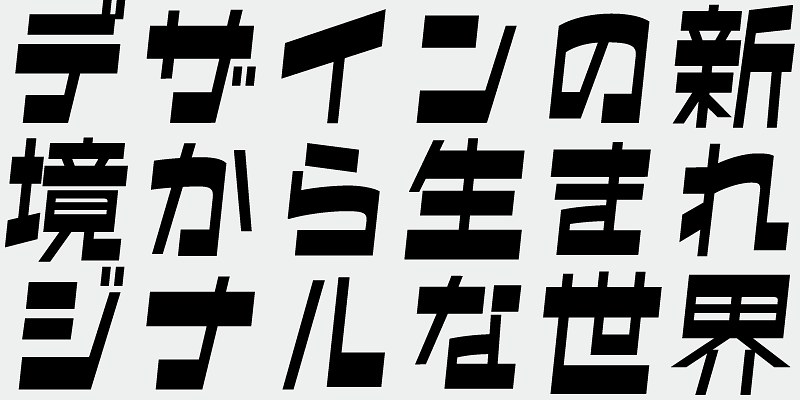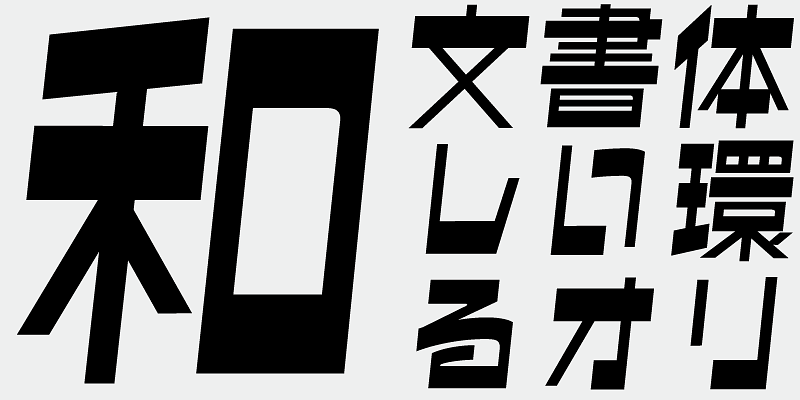
Created using characters from manga titles as inspiration. Horizontal strokes are varied in thickness to maintain visual weight even with fewer strokes. The italic style adds a sense of lightness and rhythm. The typeface is named “Gamma” from reading “manga” backwards.
This font includes the top 1,000 kanji characters selected from usage frequency lists compiled by newspaper companies, publishers, and the National Institute for Japanese Language and Linguistics, plus 206 additional characters such as kana, alphanumerics, and carefully selected symbols and punctuation marks.